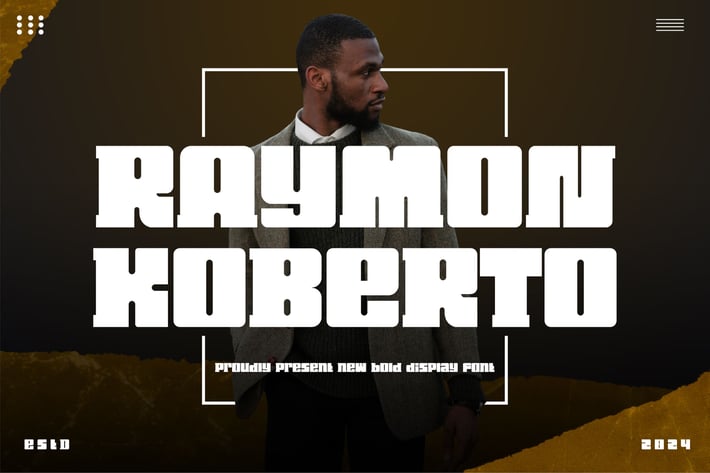
Raymon Koberto - A New Bold Display Font
Introducing the Raymon Koberto a New Bold Display Font. Very suitable to be combined with invitation card designs, company logos, film titles, film names, business cards, book titles, brand names and various other designs. Its stylish alternation and binding make this font the perfect partner for any project.
- Uppercase and lowercase
- Numbering and Punctuation